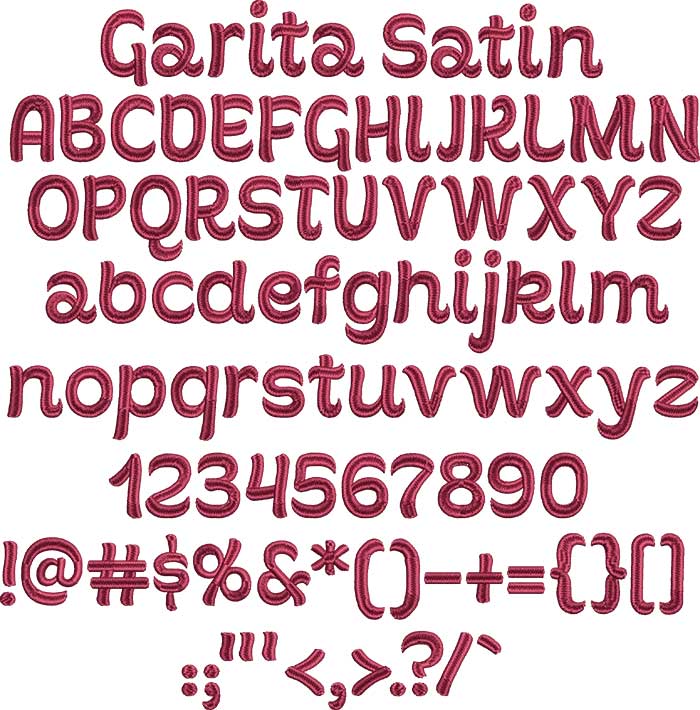
BX Embroidery Font: Garita Satin
Garita (3 sizes) is a bold, casual sans serif machine embroidery font that includes A-Z, a-z, 0-9 and the following punctuation: `!@#$%&*()-+={}[]|:;”‘<>,.?/ (91 total characters per size).
Each character in this alphabet is individually manually digitized; we do not use a TrueType to Stitches conversion utility to create our fonts. Additionally, stitch attributes such as stitch type, density, compensation, and underlay are optimized for each size available. Choose the size closest to what you need. Shrinking the smallest size is not recommended.